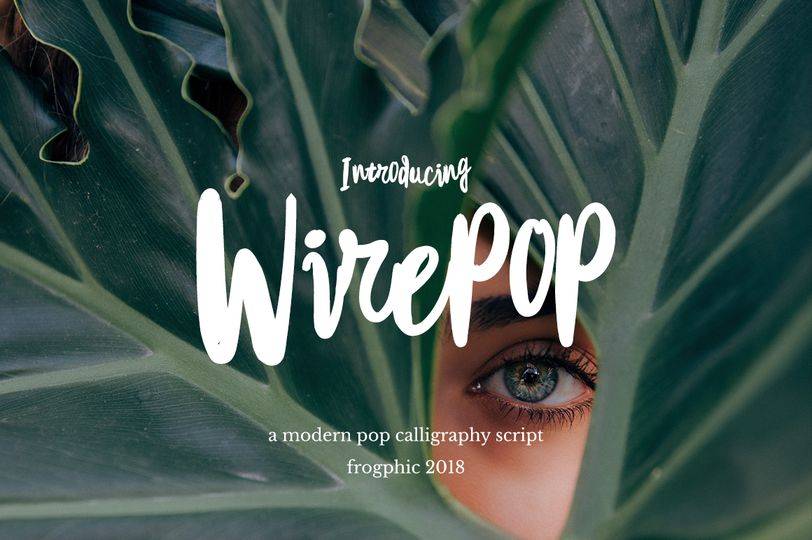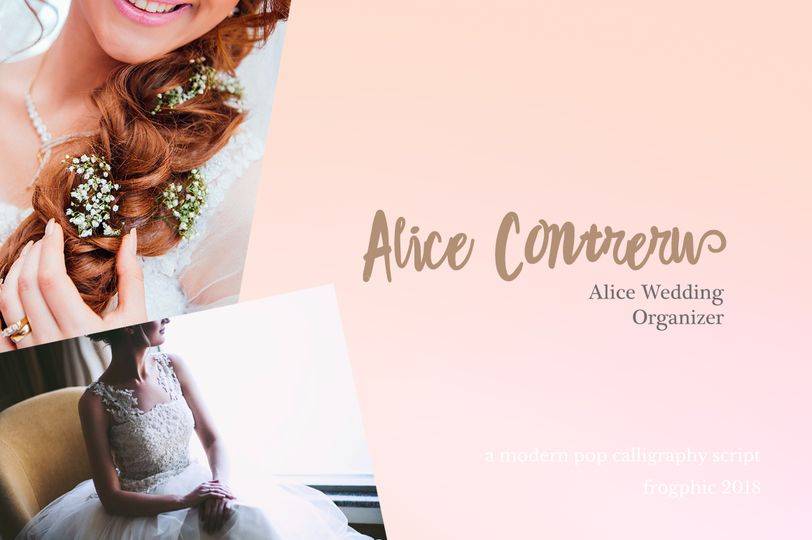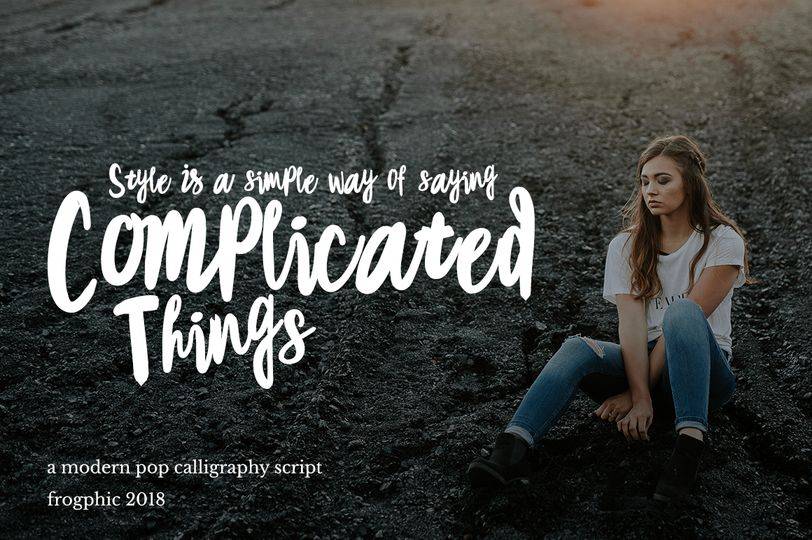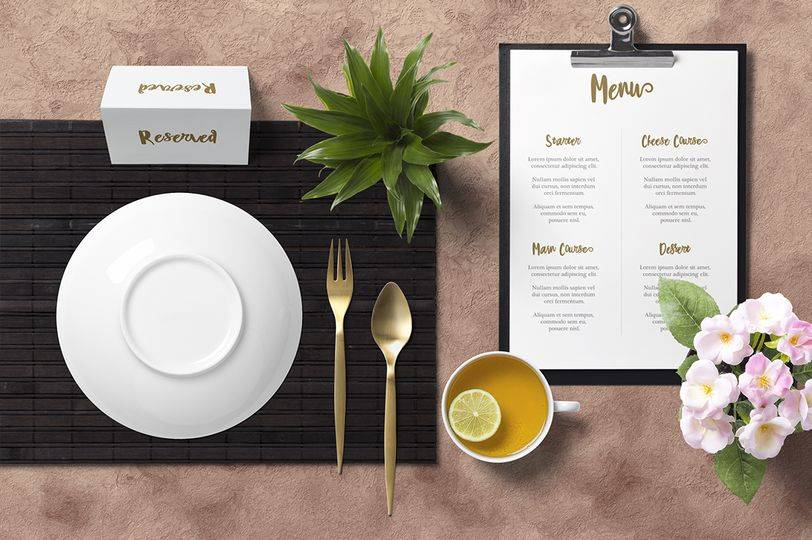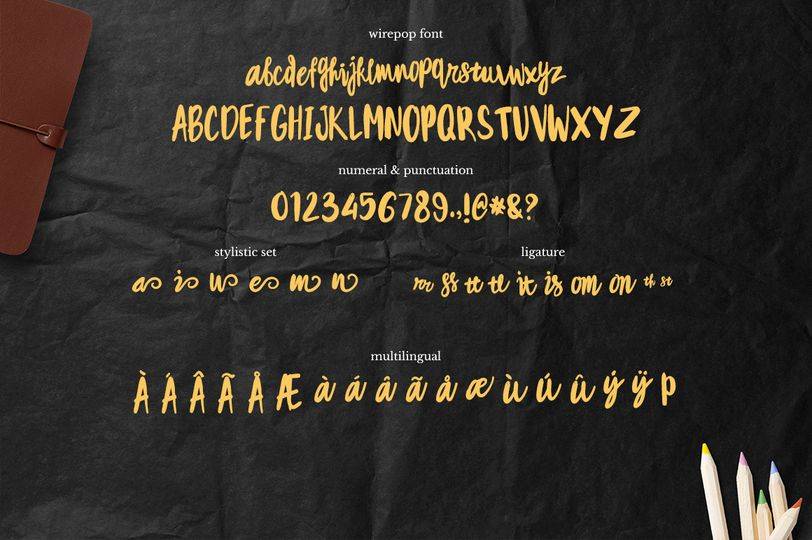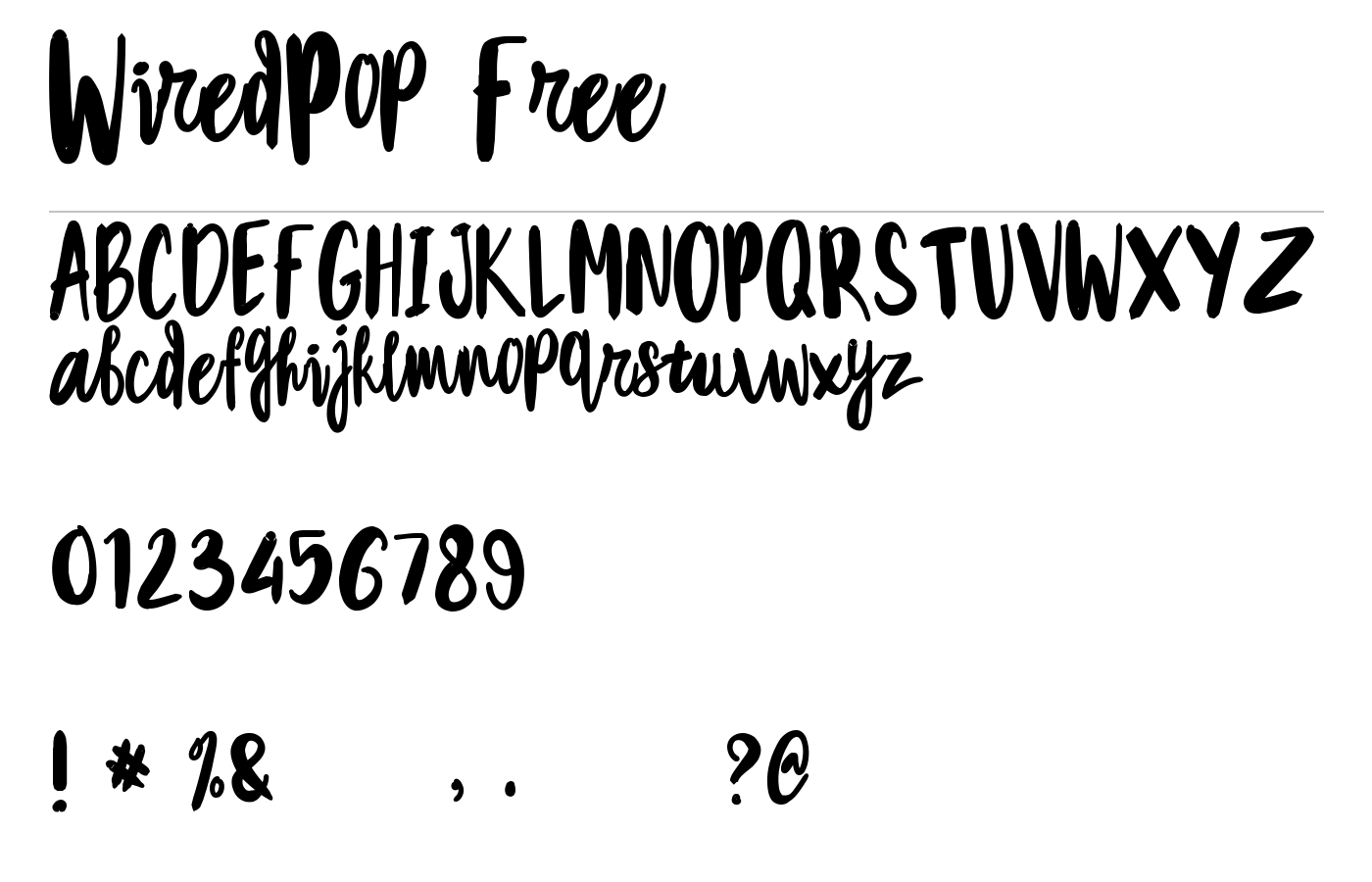
WirePop Modern Pop Script is a bold and playful script font with a hand-drawn feel, featuring lively, irregular strokes and a casual, modern flair. Its tall, narrow letterforms with varying thickness give it an energetic and friendly personality, making it ideal for creative branding, fun headlines, and eye-catching posters that want to convey warmth and approachability. This font works well where a dynamic, informal look is needed to engage audiences with a youthful and vibrant tone.
WirePop Modern Pop Script Font
About WirePop Modern Pop Script Font
| Font family | WirePop Modern Pop Script Font |
| Designer | Aidil Muladha |